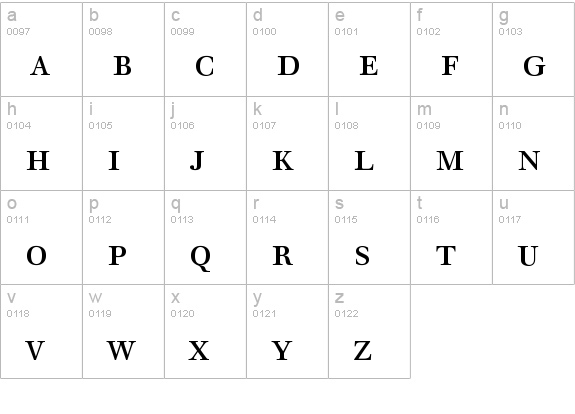
Walbaum Standard Expert Regular is the standard, neutral variant in the Walbaum typeface family \xE2\x80\x94 well suited to general body text, paragraphs, and standard typographic work.
Walbaum Standard Expert Regular is a timeless font that exudes elegance and sophistication. With its clean lines and classic proportions, it is perfect for any project that requires a touch of refinement. The expertly designed letterforms are carefully crafted to ensure legibility and readability, making it ideal for both print and digital applications. This font is a versatile choice for a wide range of design projects, from branding and advertising to editorial and packaging. Its versatility is further enhanced by its extensive character set, which includes a full range of accents and special characters, making it suitable for multilingual typesetting. One of the best things about Walbaum Standard Expert Regular is that it is freely available to download at FontsMarket.com. This means that you can access this high-quality font without any cost, allowing you to add a touch of sophistication to your designs without breaking the bank. Whether you are a professional designer or a hobbyist, Walbaum Standard Expert Regular is a valuable addition to your font collection. Its timeless beauty and versatility make it an excellent choice for any project, and the fact that it is free to download makes it even more appealing. Don't miss out on the opportunity to elevate your designs with this elegant font. Visit FontsMarket.com today and start using Walbaum Standard Expert Regular to create stunning typography that truly stands out.